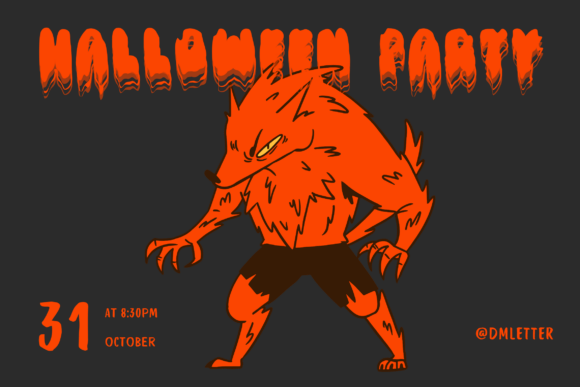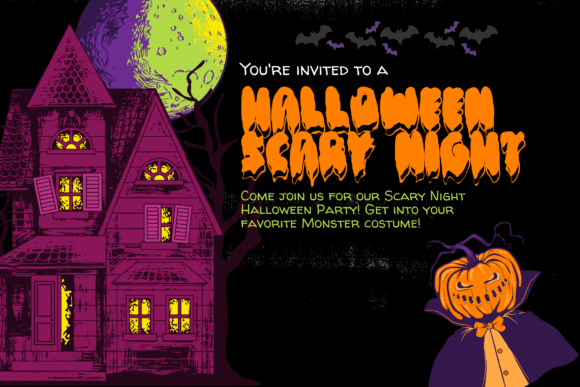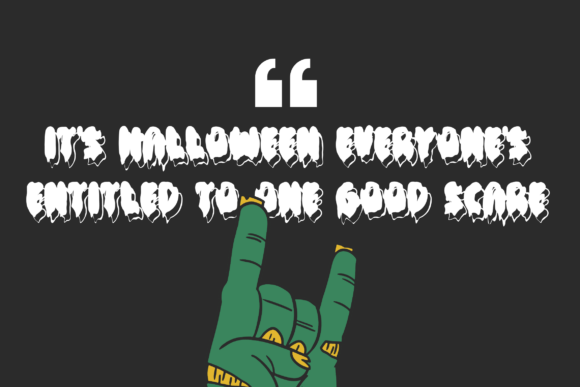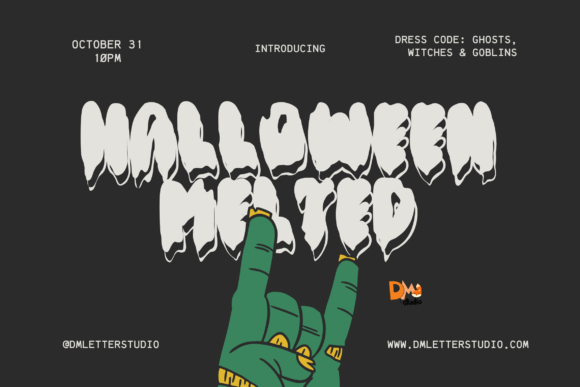
Unveiling Halloween Melted Font, an unnerving and viscous typeface designed specifically to cater to all your ghostly seasonal requirements.
This horrifically inspired, leaky font infuses a bone-chilling aura and an uncanny appeal into your creative designs It is an ultimate choice to integrate into Halloween bash invites, eerie movie posters, thrill-inducing merchandise, or gothic brand identity.
Halloween Melted Font offers exceptional quality and versatility, making it a valuable addition to your design toolkit. Whether you’re creating for personal projects or commercial use, Halloween Melted Font delivers professional results.